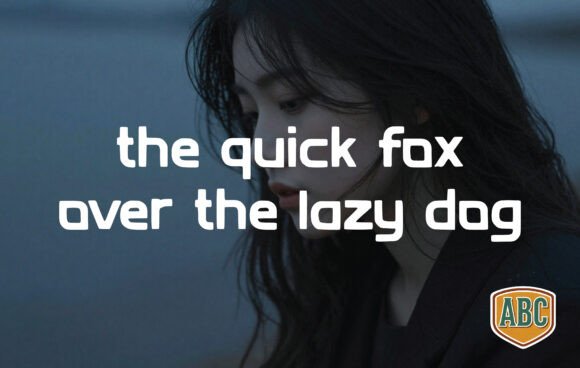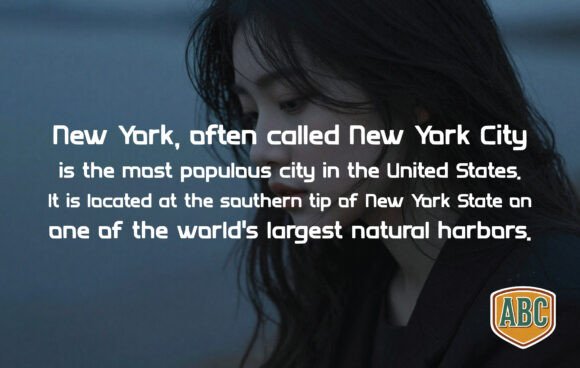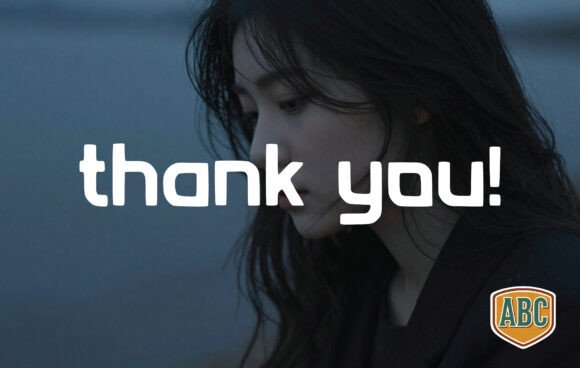
Discover the Power of Darkslate Font: Elevate Your Design with Clarity and Professionalism
In the world of typography, finding the right font can make all the difference in communicating your message effectively. For designers and crafters seeking a reliable and modern sans-serif font, look no further than Darkslate Font. This neo-grotesque typeface is specifically designed for maximum legibility, making it the perfect choice for a wide range of applications, from user interfaces and corporate documentation to high-stakes branding and large-scale signage.
The Darkslate Advantage: Clean, Humanist Design
Unlike some fonts that rely on gimmicks and engineered features, Darkslate Font takes a refreshingly straightforward approach. Its clean, humanist design ensures a reliable and approachable feel, making it an excellent choice for projects where clarity is paramount. The font’s neo-grotesque roots provide a solid foundation for modern professionalism, while its balanced proportions and multiple weights allow for seamless pairing with more decorative display fonts.
Versatility Unleashed: The Ultimate Workhorse Font
Darkslate Font is the ultimate versatile workhorse, capable of handling a wide range of design tasks with ease. Whether you’re working on a mobile app, coding a website, or creating large-scale signage, this font is up to the task. Its exceptional legibility and adaptability make it an excellent choice for any project that demands clear communication across both print and screen.
The Gold Standard for User Interfaces and Corporate Documentation
In the world of user interface design, typography plays a critical role in creating an intuitive and user-friendly experience. Darkslate Font is specifically designed with this in mind, providing a clear and legible foundation for your UI design. Similarly, for corporate documentation, the font’s clean and professional appearance ensures that your message is conveyed with authority and credibility.
Elevate Your Branding with Darkslate Font
For high-stakes branding projects, Darkslate Font is the perfect choice. Its modern professionalism and clean design ensure that your brand is presented in the best possible light. The font’s versatility allows it to pair seamlessly with more decorative display fonts, creating a harmonious and effective typographic duo. Whether you’re looking to create a bold statement or a subtle impression, Darkslate Font provides the perfect foundation for your branding needs.
Key Features of Darkslate Font
- Neo-grotesque sans-serif design: Providing a clean and modern foundation for your design
- Maximum legibility: Ensuring clear communication across both print and screen
- Balanced proportions: Allowing for seamless pairing with more decorative display fonts
- Multiple weights: Providing flexibility and adaptability for a wide range of design tasks
- Clean, humanist design: Ensuring a reliable and approachable feel
In conclusion, Darkslate Font is a powerful and versatile typeface that offers a unique combination of clarity, professionalism, and adaptability. Whether you’re a designer, crafter, or simply looking for a reliable font for your project, Darkslate Font is an excellent choice. Its clean, humanist design and neo-grotesque roots provide a solid foundation for modern professionalism, making it the perfect choice for user interfaces, corporate documentation, high-stakes branding, and large-scale signage. With Darkslate Font, you can build a foundation of absolute clarity and modern professionalism, elevating your design to new heights.